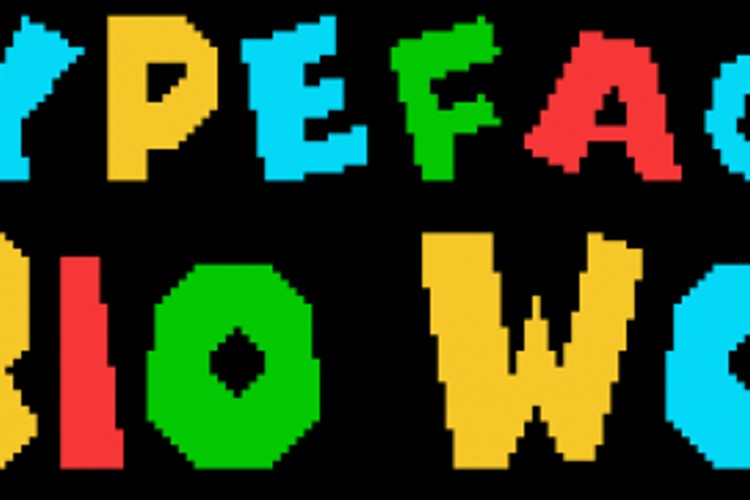
Typeface Mario World Pixel Font
Typeface Mario World Pixel Font. Font based on the Super Mario World logo text and other old mario content (such as Super Mario Adventures, Mario Tennis for the virtual boy, and Super Mario Compact Disco). This font is very wacky which resembles the old Mario era before the gamecube.